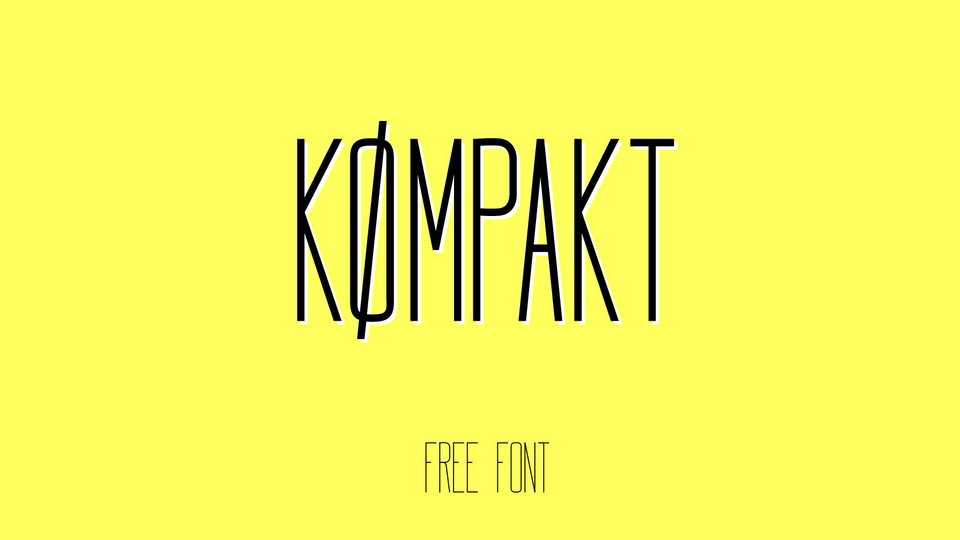
Download Kømpakt typeface, a clean and minimalist all caps font family in four weights, born one year ago during a trip around Scandinavia. Kømpakt performs very well in headlining and titles.
Designer: Jaume Mercader